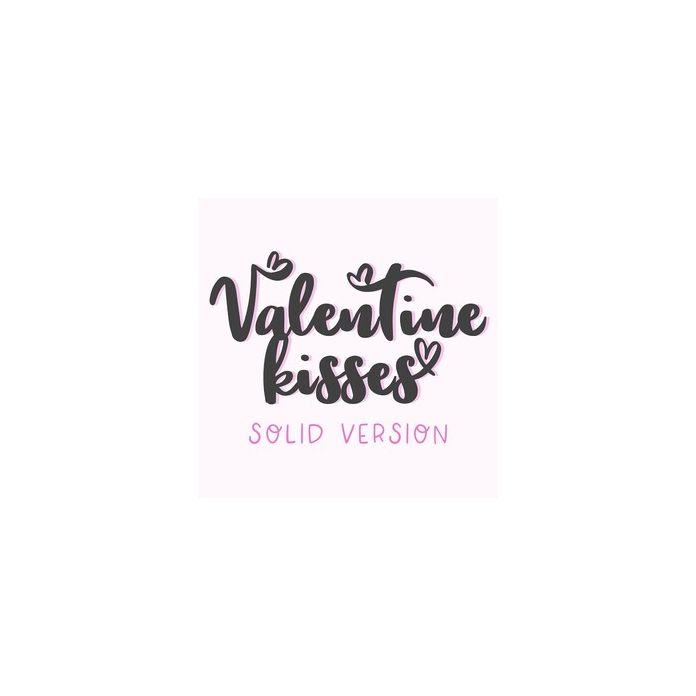
Valentine Kisses is a solid flourished Valentine's Day font. Includes 2 different files - you will have to alternate between the two to access the extra characters.